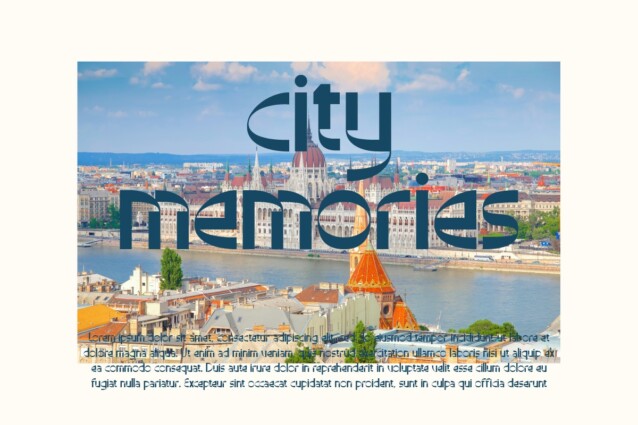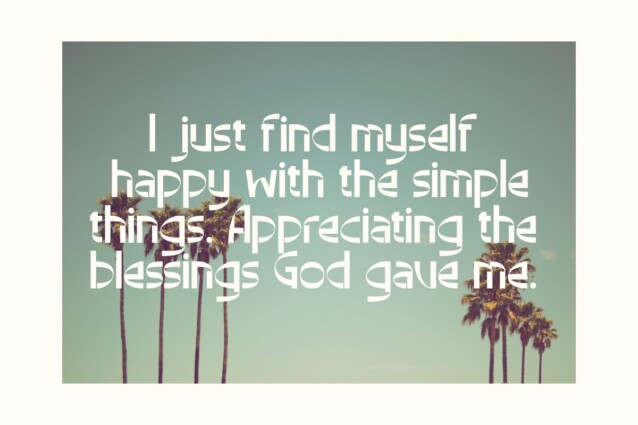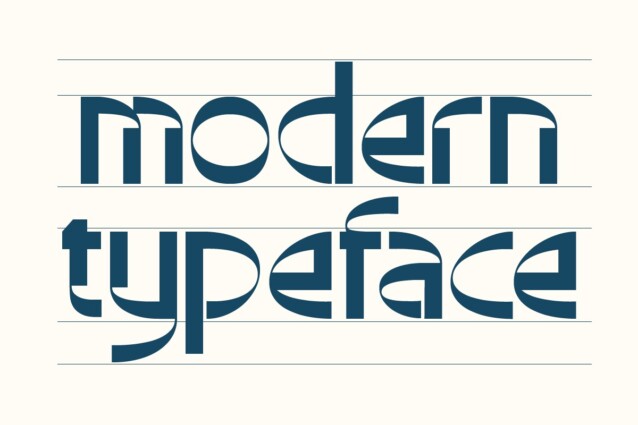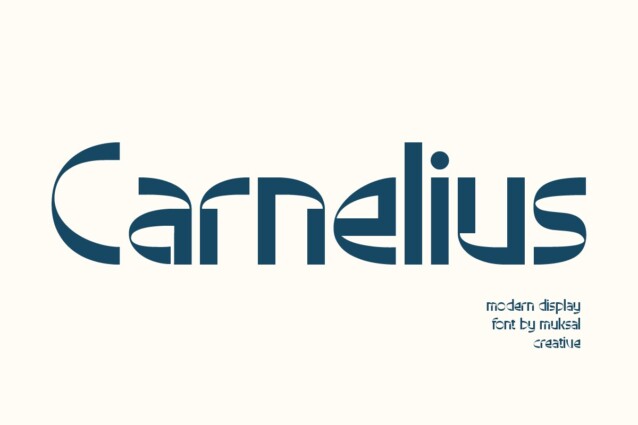
Carnelius Font
Carnelius Font is a fascinating and dynamic headline typeface created by Muksal Creative with a commanding presence and timeless elegance. It’s a very versatile font that works great in large and small sizes. Perfect for editorial projects, Logo design, Clothing Branding, product packaging, magazine headers, or simply as a stylish text overlay to any background image.